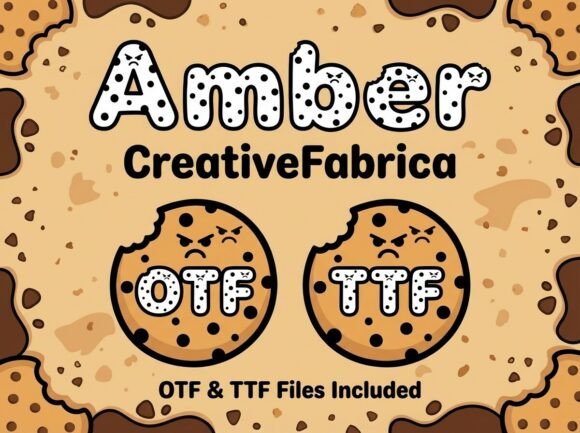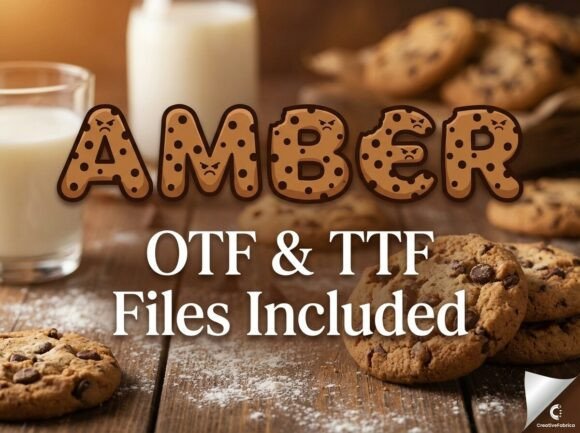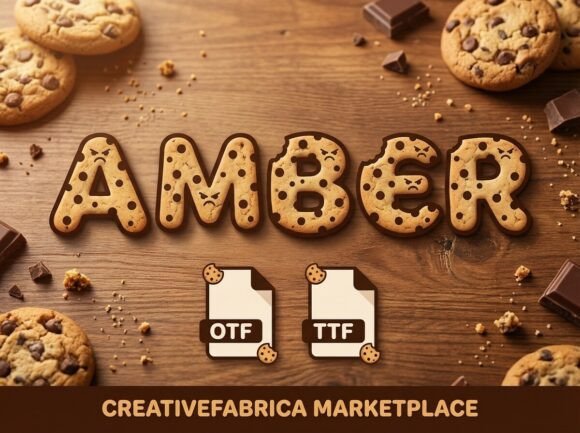
Introducing Amber Font: The Perfect Blend of Sweet and Sassy
Are you tired of using the same old fonts for your bakery branding, snack packaging, or kids’ party themes? Look no further than Amber Font, a chunky, rounded display font that’s as sweet as it is sassy. Inspired by delicious chocolate chip cookies, Amber Font is the perfect blend of “cute” and “attitude,” making it a stellar choice for designers and crafters looking to add a bit of bite to their projects.
The Story Behind Amber Font
Amber Font is more than just a pretty face – it’s a personality-packed typeface that’s sure to make a statement. With its chunky, rounded letters and adorable “bite” marks, this font is styled after the classic chocolate chip cookie. But don’t let its sweet appearance fool you – Amber Font has a bit of an edge, with grumpy-faced chocolate chips sprinkled throughout. This unique blend of cute and sassy makes Amber Font the perfect choice for projects that need a bit of attitude.
What Makes Amber Font So Special?
So, what sets Amber Font apart from other fonts on the market? Here are just a few of its standout features:
- Chunky, rounded letters: Amber Font’s chunky, rounded letters are perfect for display text, headlines, and titles. They’re bold, eye-catching, and impossible to ignore.
- “Bite” marks and grumpy-faced chips: The adorable “bite” marks and grumpy-faced chocolate chips throughout Amber Font add a playful touch that’s sure to delight. They’re the perfect way to add a bit of whimsy to your projects.
- Perfect balance of “cute” and “attitude”: Amber Font walks the line between sweet and sassy, making it the perfect choice for projects that need a bit of edge. Whether you’re designing for a bakery, a snack food brand, or a kids’ party theme, Amber Font is sure to hit the spot.
Use Cases for Amber Font
So, what can you use Amber Font for? The possibilities are endless! Here are just a few ideas to get you started:
- Bakery branding: Amber Font is a natural fit for bakeries, coffee shops, and other food businesses that want to add a bit of sweetness to their branding.
- Edgy snack packaging: If you’re looking for a font that’s a little bit playful and a little bit rebellious, Amber Font is the perfect choice for snack packaging.
- Kids’ birthday party themes: Amber Font is a great choice for kids’ party themes, adding a bit of whimsy and fun to invitations, decorations, and other party materials.
- Social media graphics: If you want to add a bit of bite to your social media graphics, Amber Font is a great choice. Use it to create eye-catching headlines, titles, and other graphics that are sure to stand out.
Why Designers and Crafters Love Amber Font
So, why do designers and crafters love Amber Font? Here are just a few reasons:
- Unique and playful: Amber Font is a one-of-a-kind typeface that’s sure to add a bit of personality to your projects.
- Easy to read: Despite its chunky, playful design, Amber Font is surprisingly easy to read – making it perfect for display text and headlines.
- Versatile: Amber Font can be used for a wide range of projects, from bakery branding to kids’ party themes.
In conclusion, Amber Font is a unique and playful typeface that’s perfect for designers and crafters looking to add a bit of bite to their projects. With its chunky, rounded letters, adorable “bite” marks, and grumpy-faced chocolate chips, Amber Font is sure to make a statement. Whether you’re designing for a bakery, a snack food brand, or a kids’ party theme, Amber Font is the perfect choice. So why wait? Give Amber Font a try today and see the difference it can make in your designs!